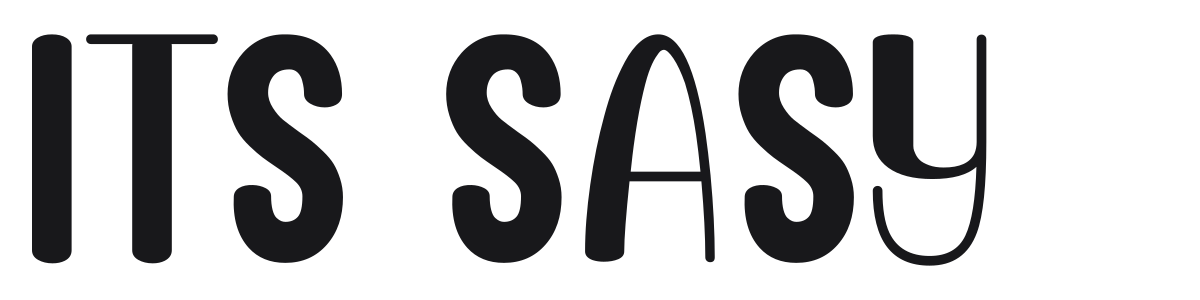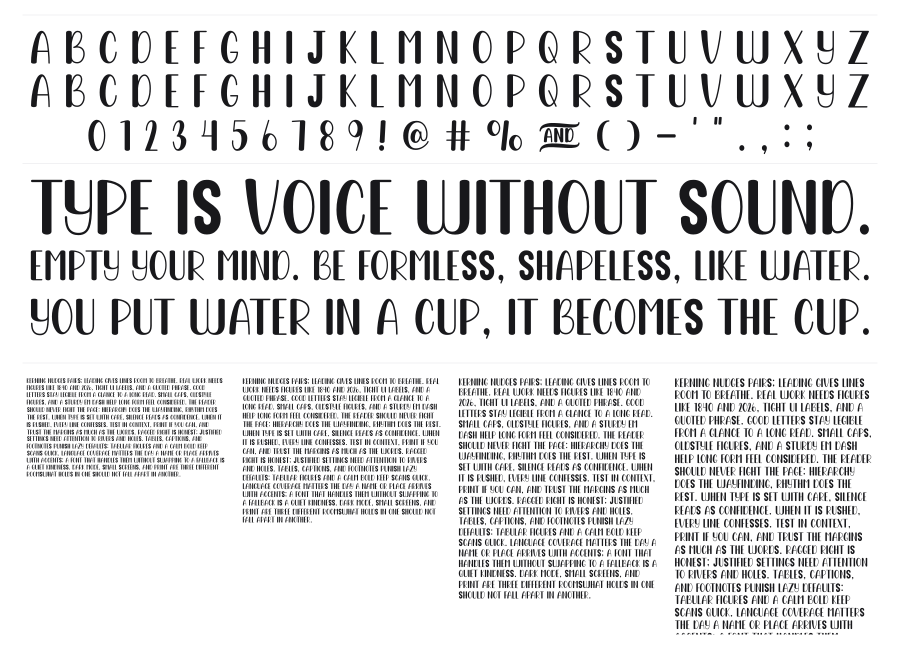
Its Sasy
Its Sasy is a tall, narrow display sans with a lively personality built from mixed-weight characters that bounce between bold and light across a single word. The variation feels deliberate rather than inconsistent, giving it a hand-lettered warmth that works well on packaging, branding, and poster headlines. A strong choice when you want something clean but not sterile.